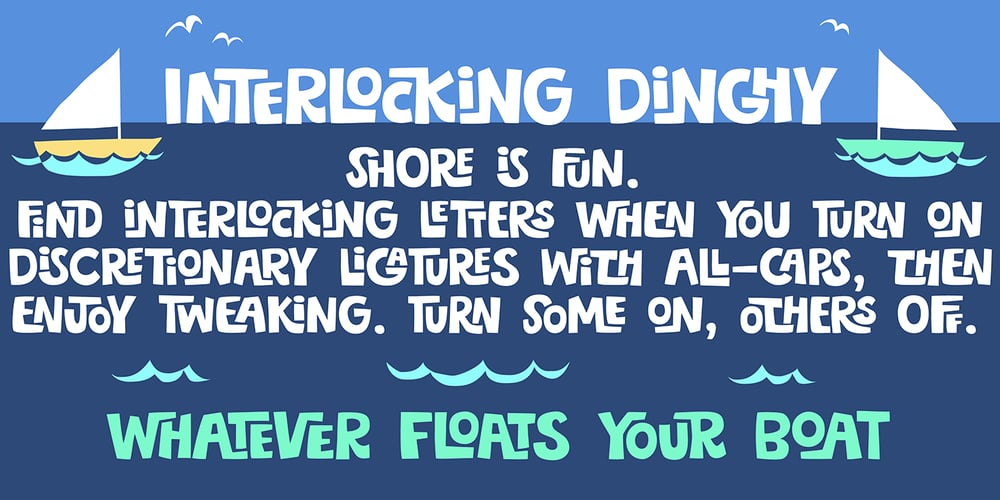
Dinghy Font Family was designed by Amy Dietrich and published by Atlantic Fonts. Dinghy contains 2 styles and family package options. Dinghy is a shore thing. Like three fonts in one, Dinghy sports a friendly, bold lower-case, a salty, strong upper-case, and in all-caps with discretionary ligatures turned on, Dinghy is tightly interlocking. Turn some ligatures on, others off, to craft the look you want – whatever floats your boat. Dinghybats contains 26 original Amy Dietrich seaside illustrations from curious ocean animals to dune grasses to, well, dinghies…. So enjoy making waves with Dinghy family!